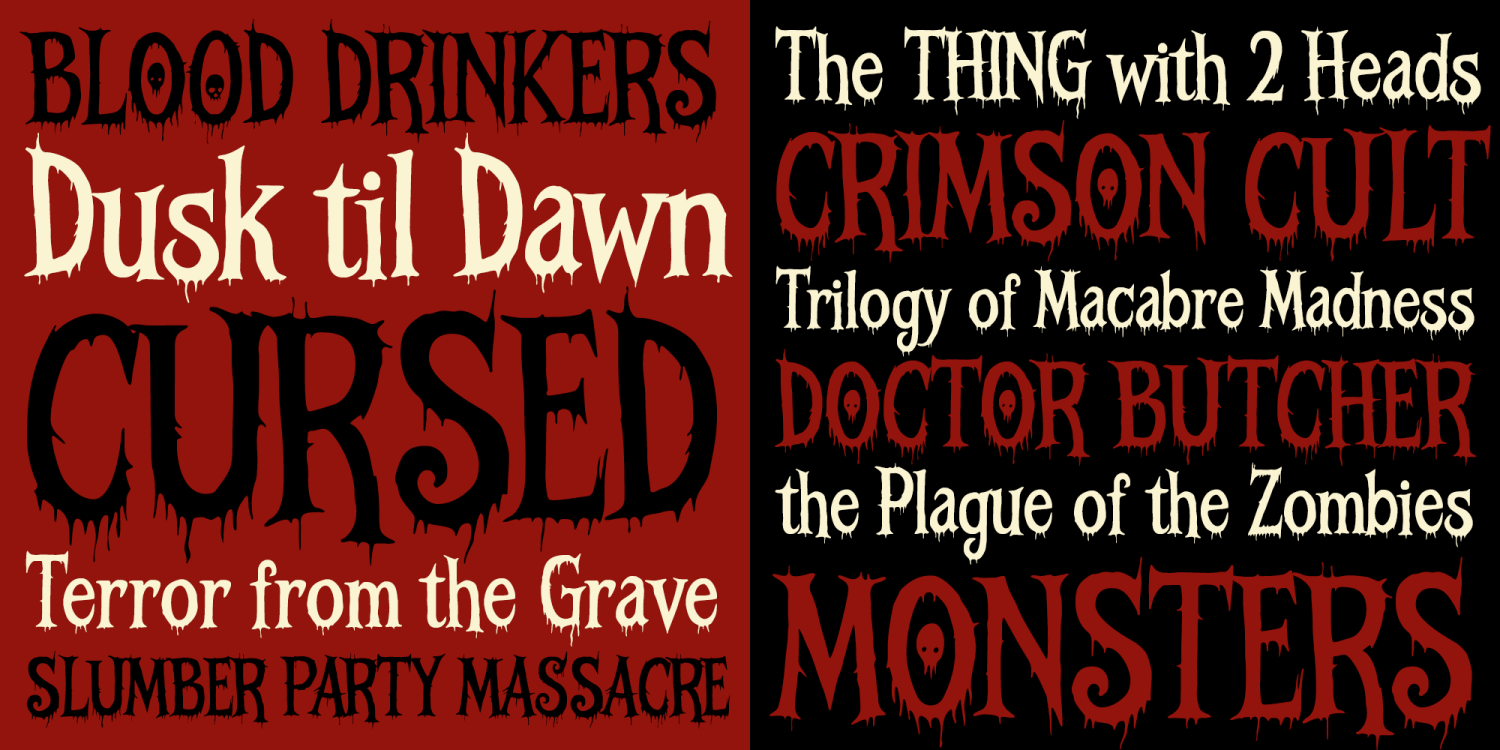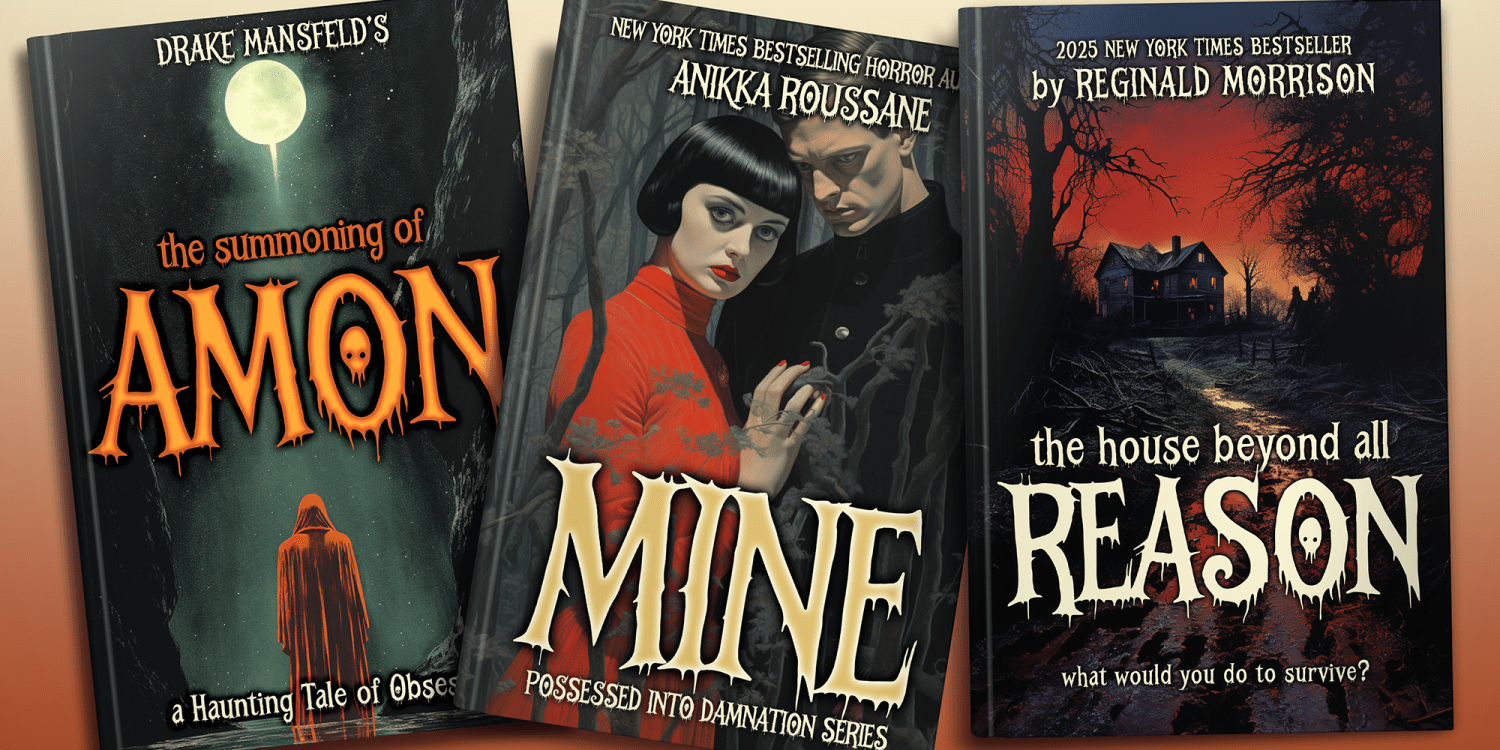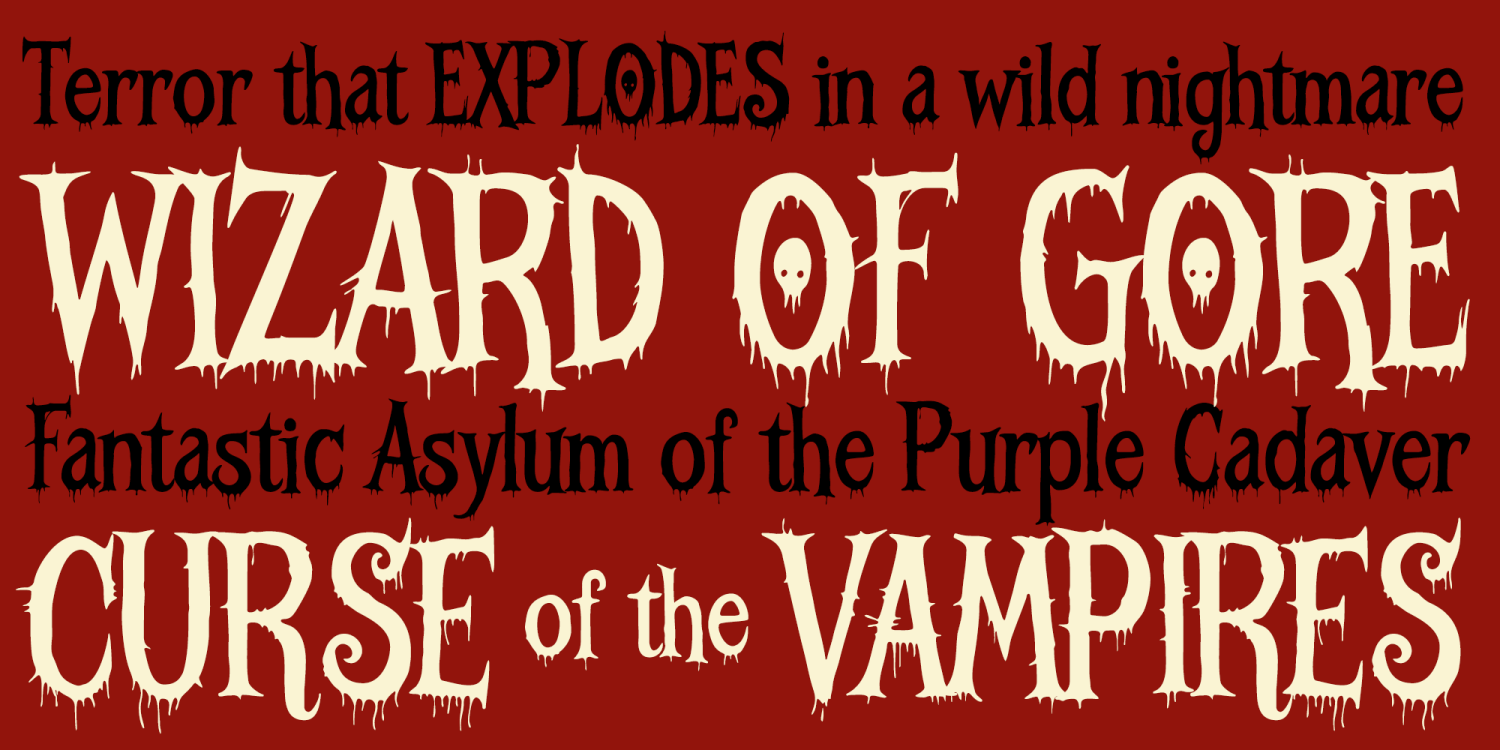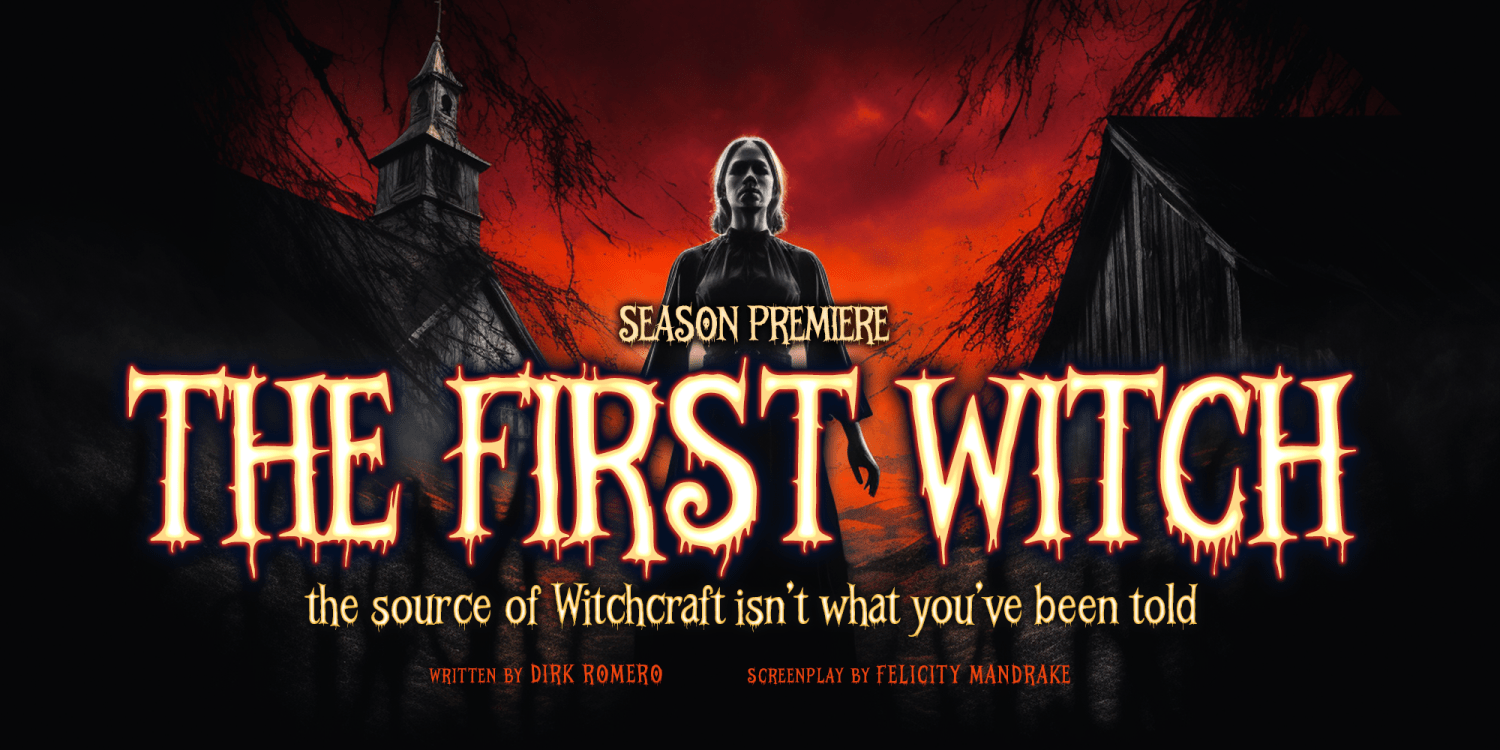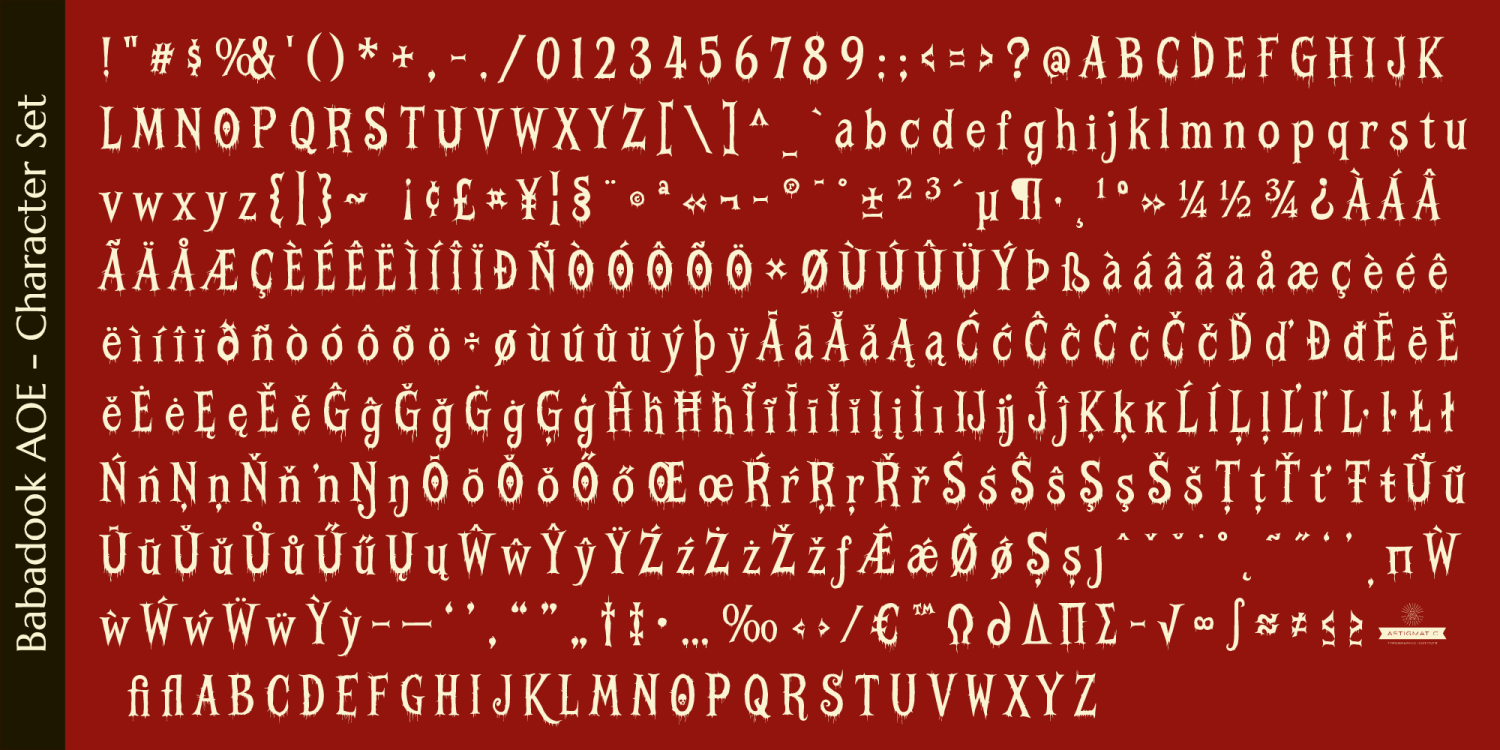
Babadook AOE
Font Family by Astigmatic One Eye
Babadook AOE was inspired not by any specific horro movie poster, but the vibe of a lot of 1960's and 1970's movie poster titles. Creepy, drippy, and haunting are all terms to describe the impression this font leaves. I've always been a huge fan of horror movies, and some of the lettering from vintage horror movie posters are so cool and alive, I only wish there were more of them recreated as display fonts.
Babadook AOE includes a full set of alternate Capitals that swap in when double capital letters are typed, or if the Stylistic Alternates feature is enabled.